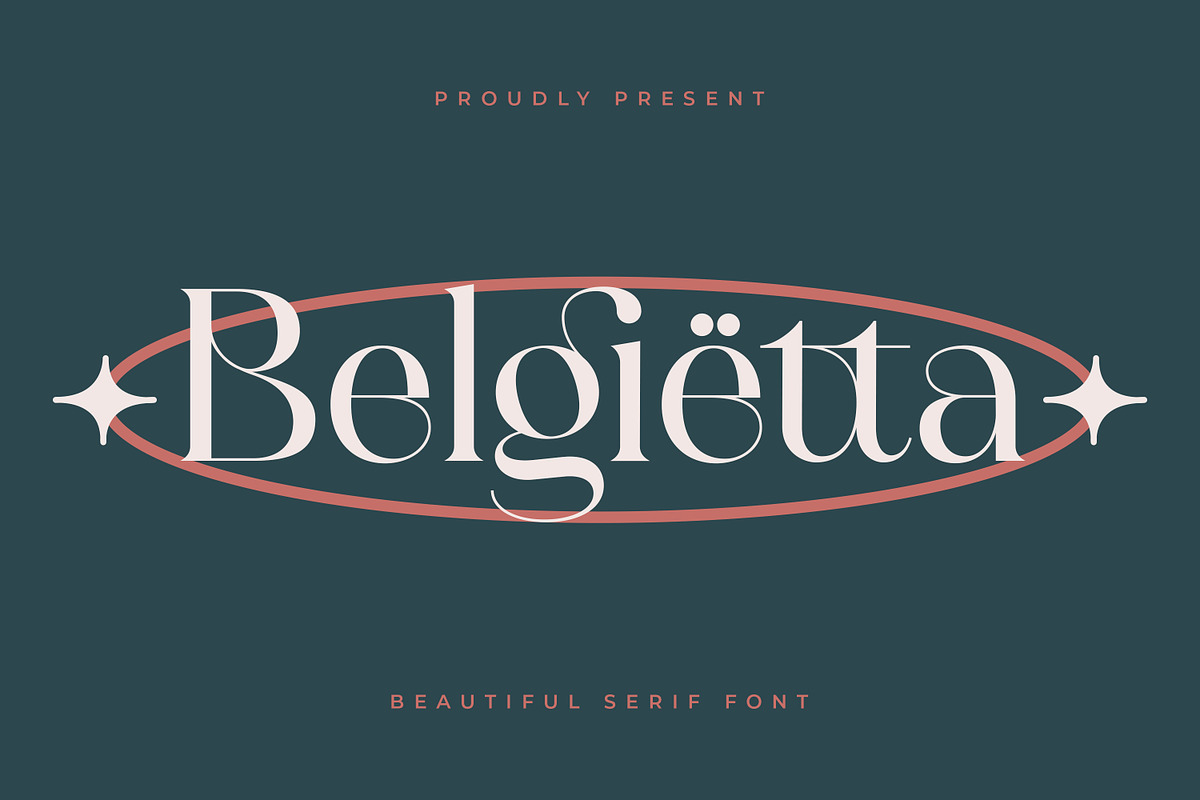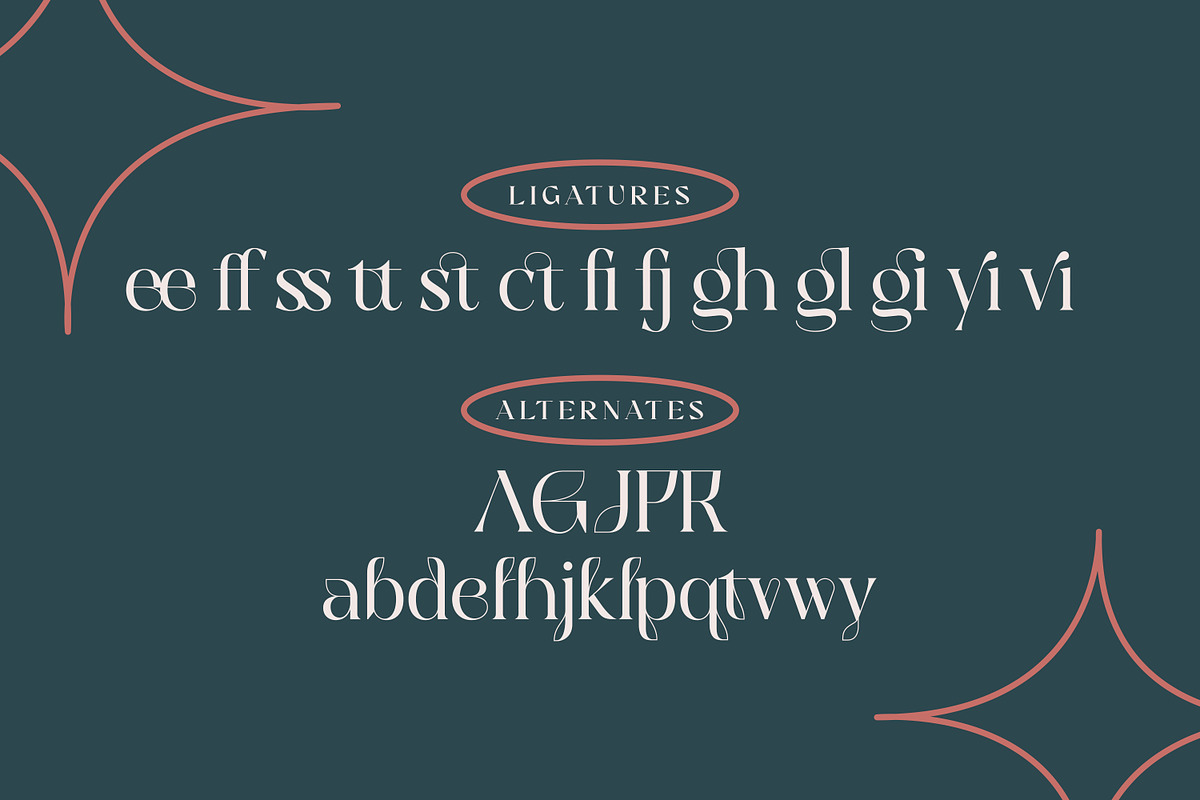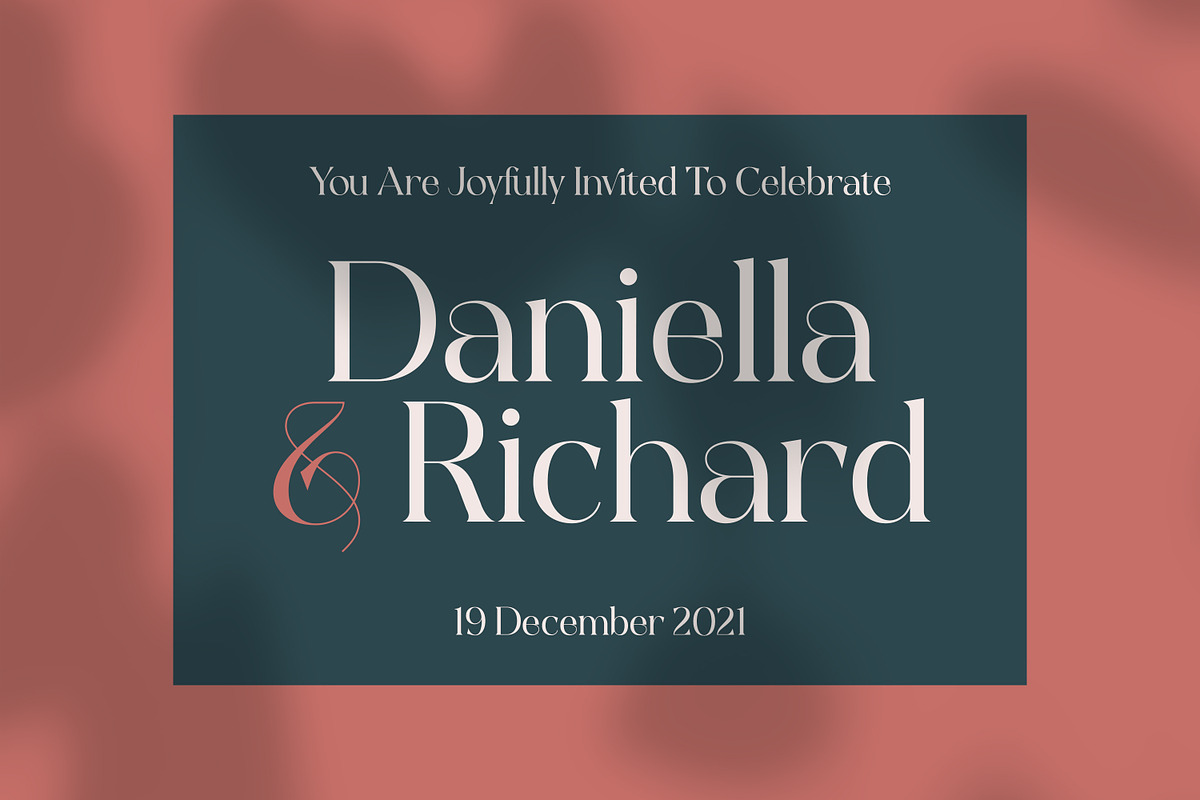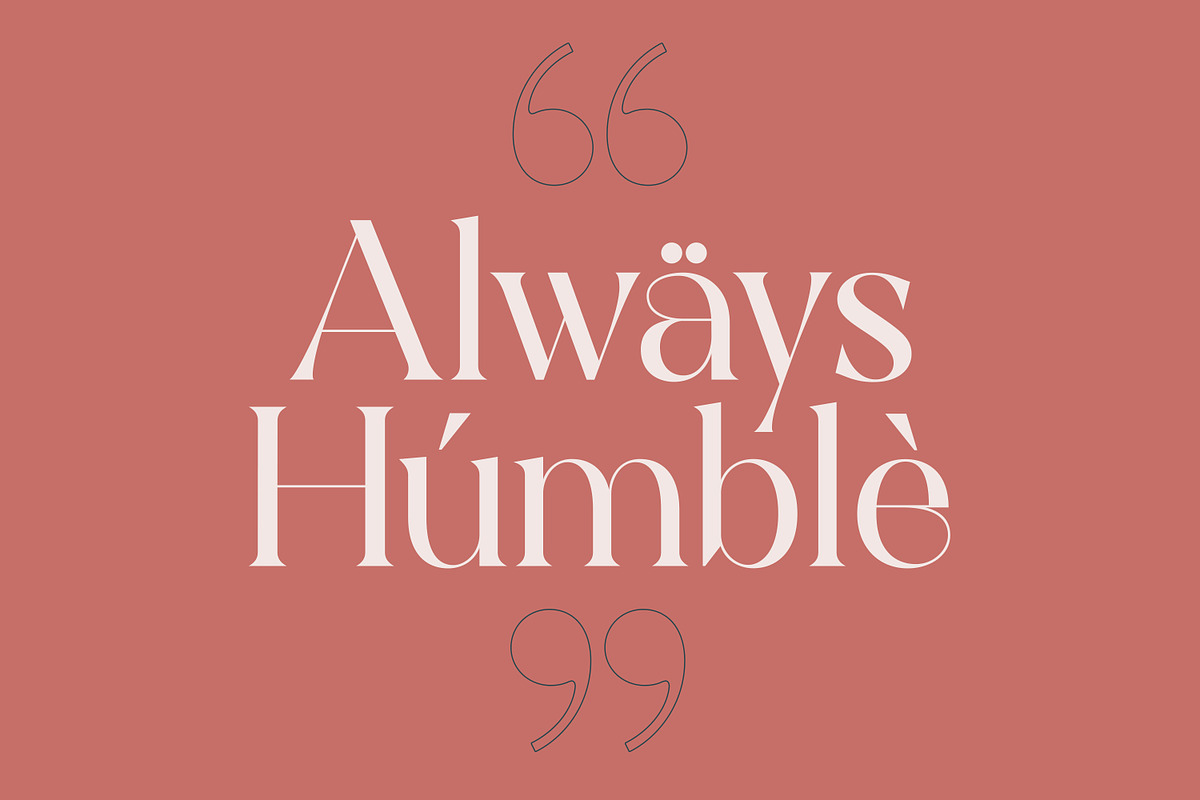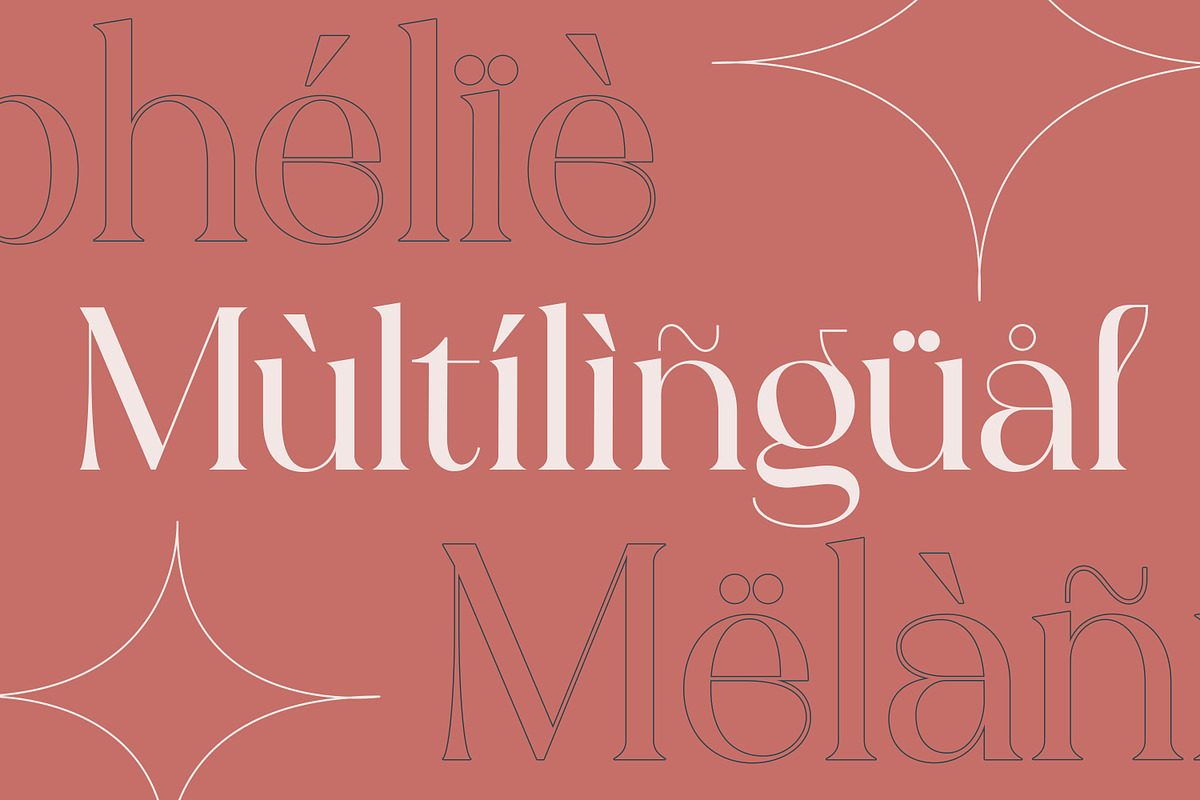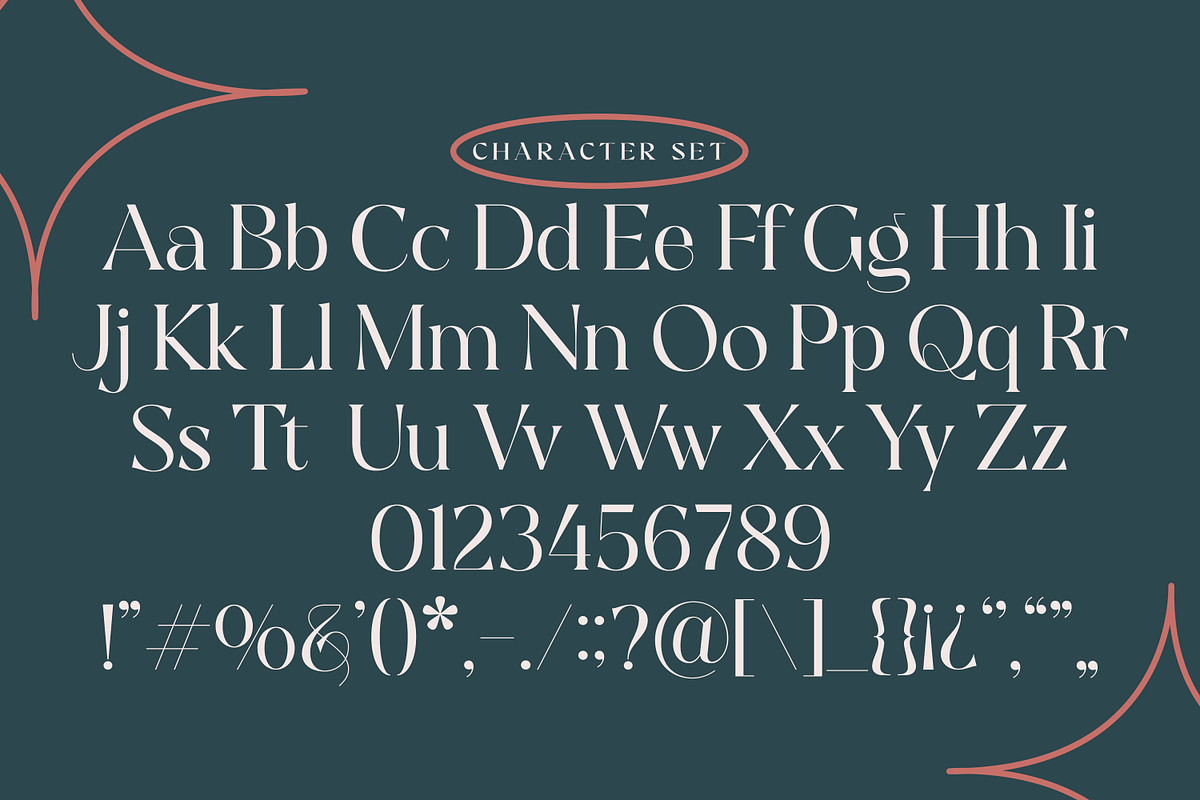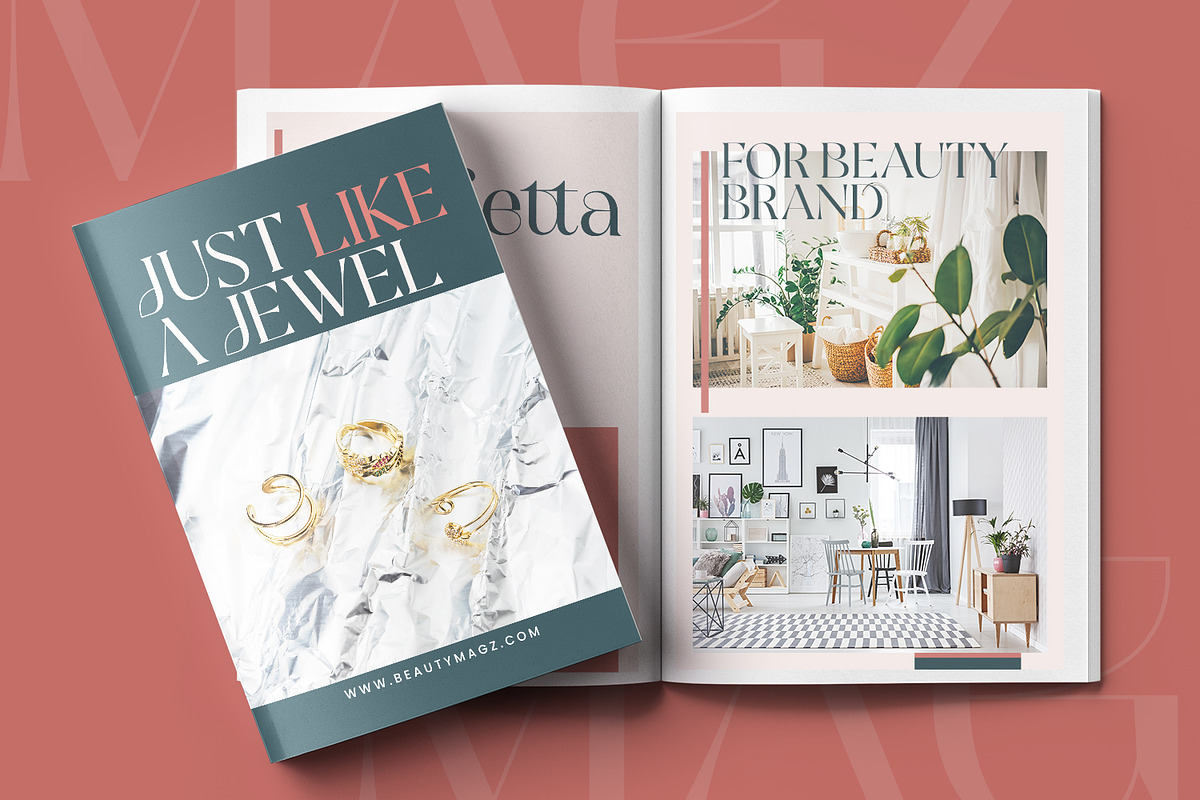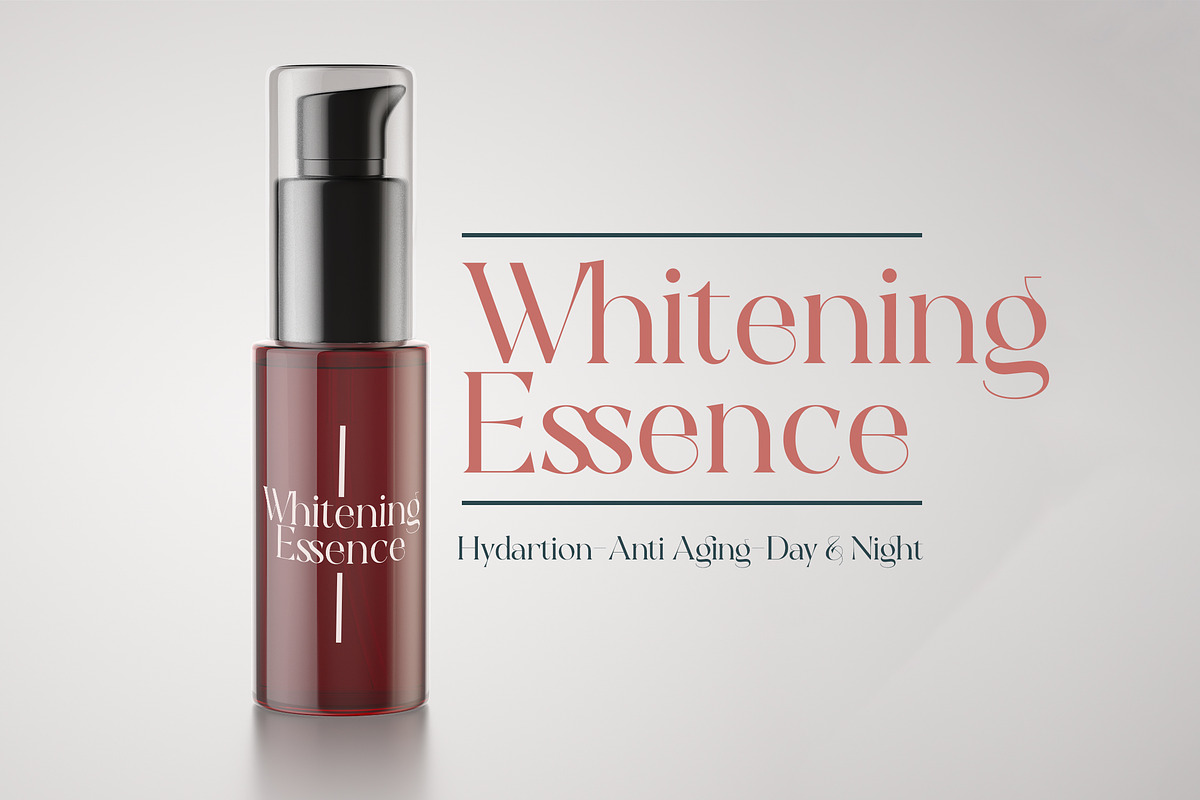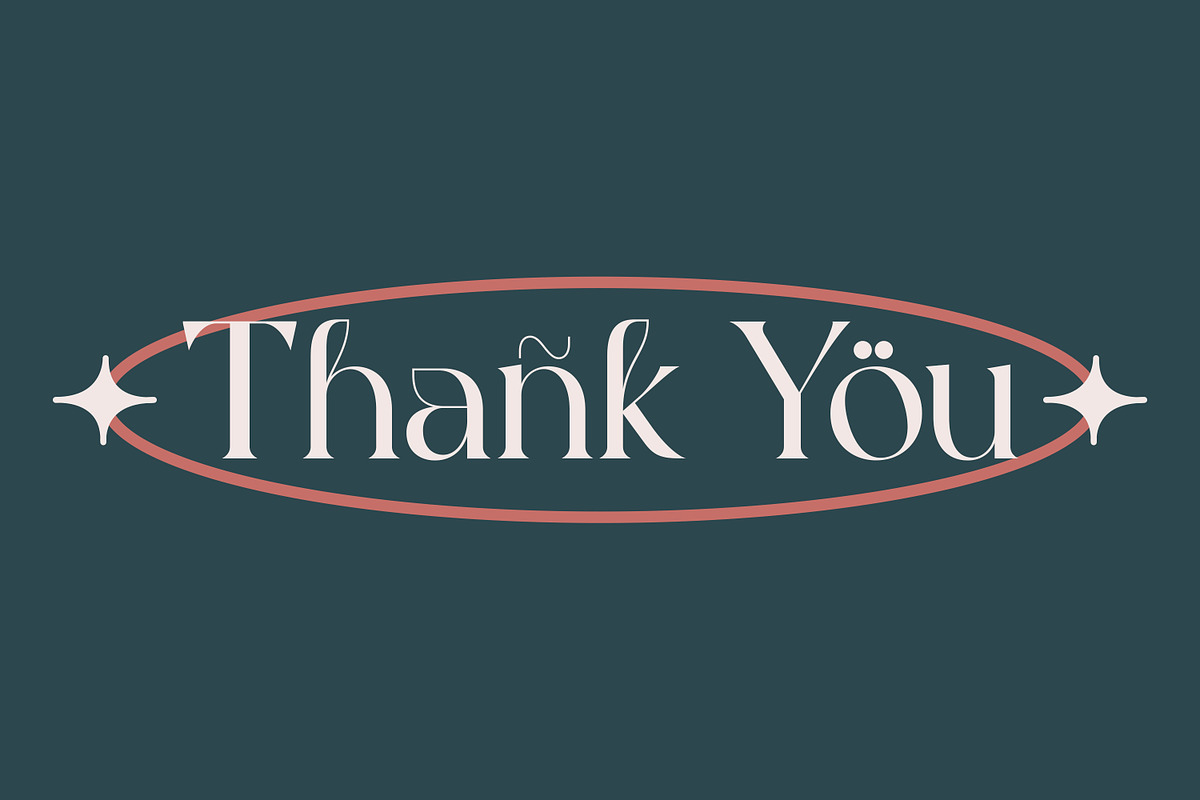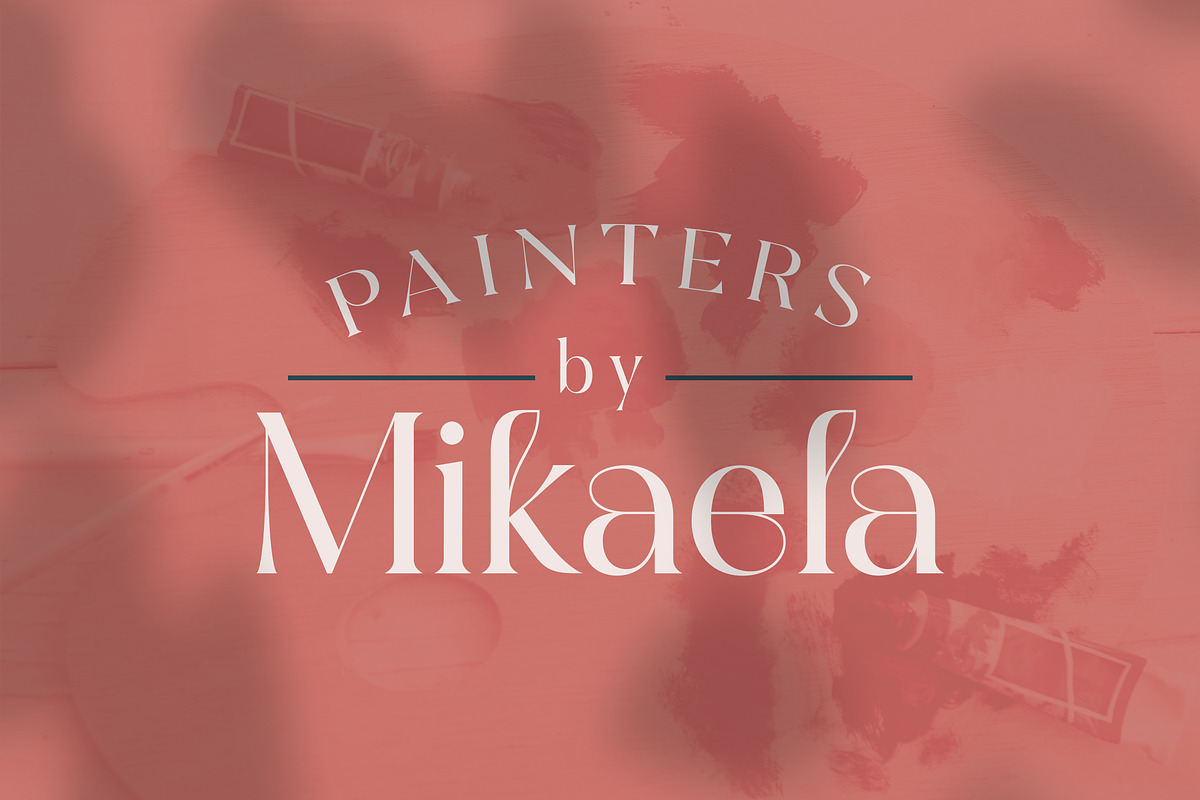
Belgietta- Luxurious Display Serif
Belgietta - Luxurious Display Serif is a unique font that uses ligatures to smoothly combine letters. Perfect for adding a unique twist to word-mark logos, monograms, or pull quotes. Belgietta has many ligatures and Alternates as well as numbers and punctuation making it super fantastic. Ligature can be turned off if required standard writing needs. What's Included :